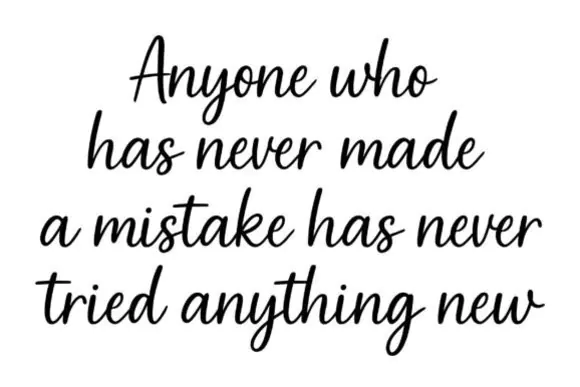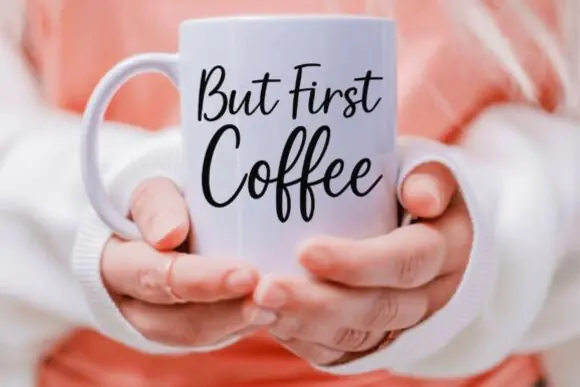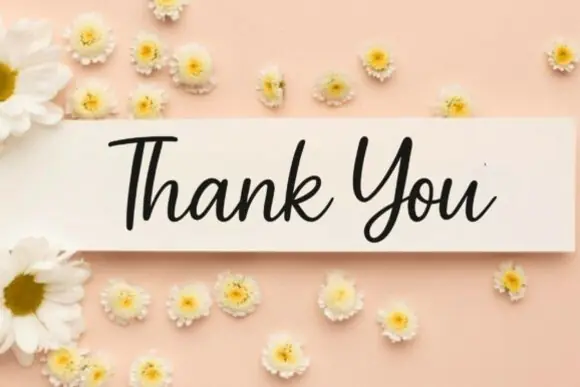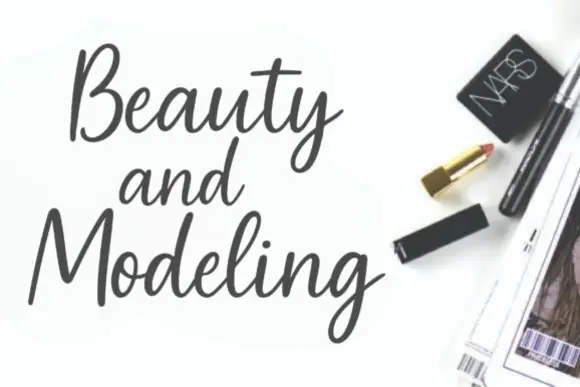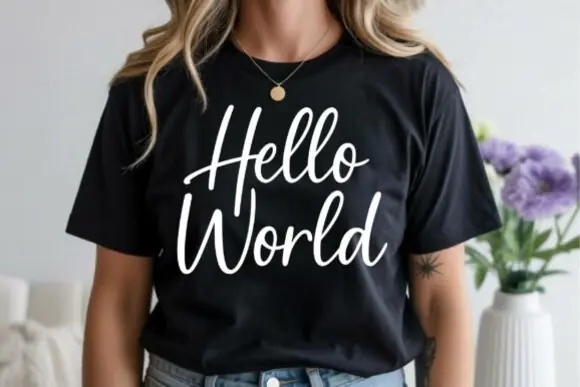
Simple Handwriting Font – Fluid Contemporary Script Typeface for Branding, Watermarks, Social Media Captions, Signatures, Headlines, Short Paragraphs & Elegant Personal Designs
Give your creative work a warm, natural, and personal touch with Simple Handwriting Font, a beautifully fluid contemporary script typeface inspired by relaxed real handwriting. Its clean medium-weight style, gentle slant, smooth curves, and sweeping connections make it feel authentic, friendly, and elegant without becoming too decorative or hard to read.
This font is perfect for designs that need a human, approachable, and stylish handwritten look. Use it for branding, logos, watermarks, social media captions, signature-style text, digital artwork, greeting cards, invitations, product packaging, labels, quote designs, headers, and short paragraph layouts. Unlike many complex script fonts, Simple Handwriting keeps a strong balance between beauty and readability, making it useful for both headline text and smaller creative writing sections.
Whether you are designing personal branding materials, social media graphics, printable wall art, elegant stationery, or handmade product packaging, this font helps your message feel more personal, warm, inviting, and professionally polished. It is a great choice for designers, creators, bloggers, small business owners, artists, crafters, and digital product sellers who want a casual yet refined handwritten script font.
Branding, logos, watermarks, social media captions, signature designs, digital artwork, greeting cards, invitations, product labels, packaging, quote graphics, blog headers, short paragraphs, stationery, printable wall art, handmade product designs, and elegant personal projects.
Key Features
• Fluid contemporary script handwriting style
• Natural, relaxed, and authentic appearance
• Clean medium-weight letterforms
• Gentle slant for a casual elegant look
• Highly readable compared to overly decorative scripts
• Great for headlines and short paragraph text
• Adds warmth, personality, and human charm to designs